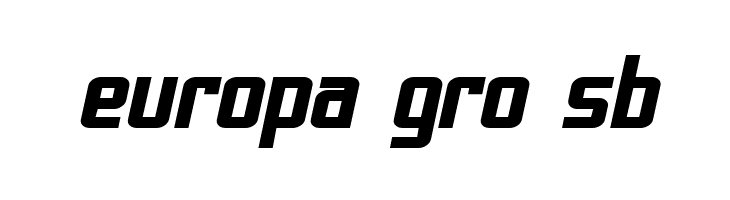
A futuristic, geometric font with bold, rounded letterforms and tight spacing.
A playful, modern font with rounded terminals and consistent stroke width.
A flowing script font with elegant, connected letters and a dynamic slant.
A geometric, angular font with a futuristic and bold design.
A playful sans-serif font with decorative dots on each character.
A bold, aggressive font with sharp, angular lines and dynamic slant.
A modern vintage font with elegant curves and sharp angles, perfect for creative projects.
A sleek, modern font with elongated, italicized characters and a light, airy appearance.
A bold, geometric font with a 3D offset effect, ideal for modern designs.
A classic Blackletter font with intricate detailing and medieval elegance.
A modern, playful font with rounded characters and consistent stroke width.
A dramatic blackletter font with ornate, gothic-inspired details.
A bold, decorative font with intricate 1960s-inspired patterns.
A bold, weapon-themed decorative font with gothic influences.
A lively, handwritten font with playful and dynamic letterforms.
A tall, narrow font with elegant curves and a modern aesthetic.
A bold, grid-patterned font with a modern, industrial look.
A bold, 3D-effect font with strong shadows and uniform width.
A bold, jagged font with a distressed, graffiti-like style.